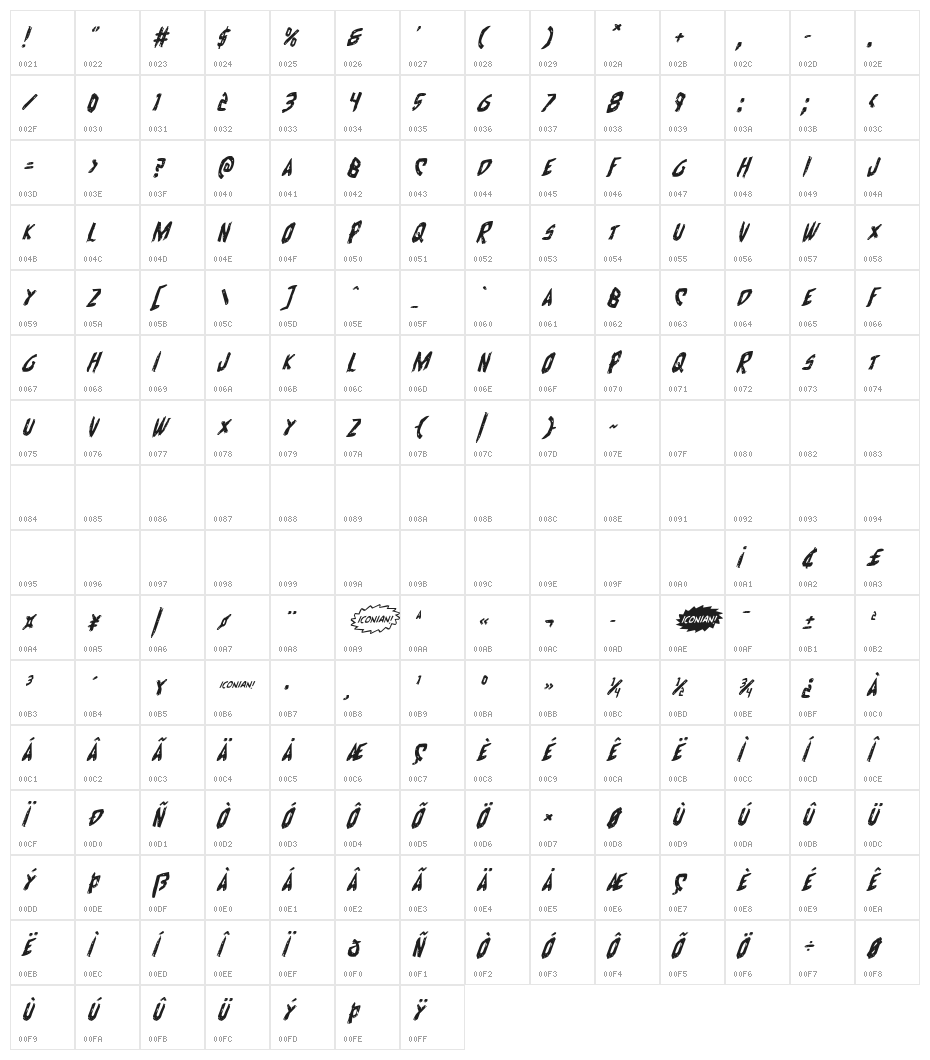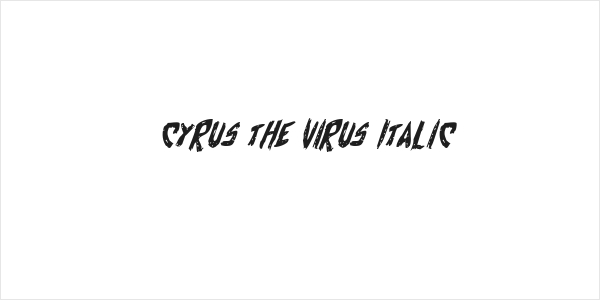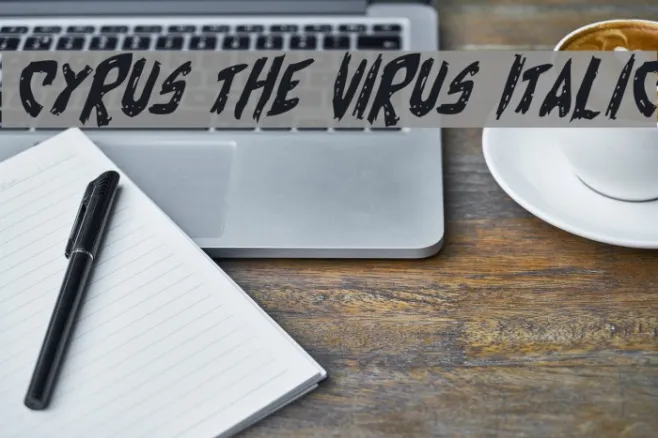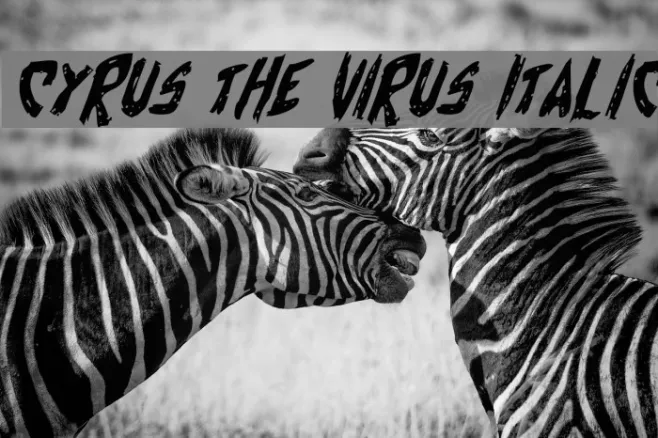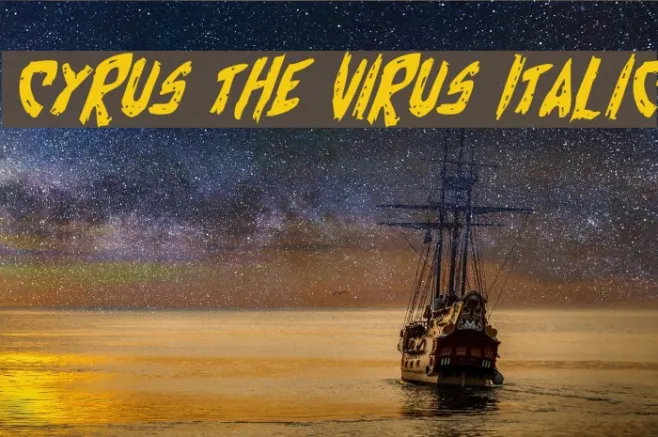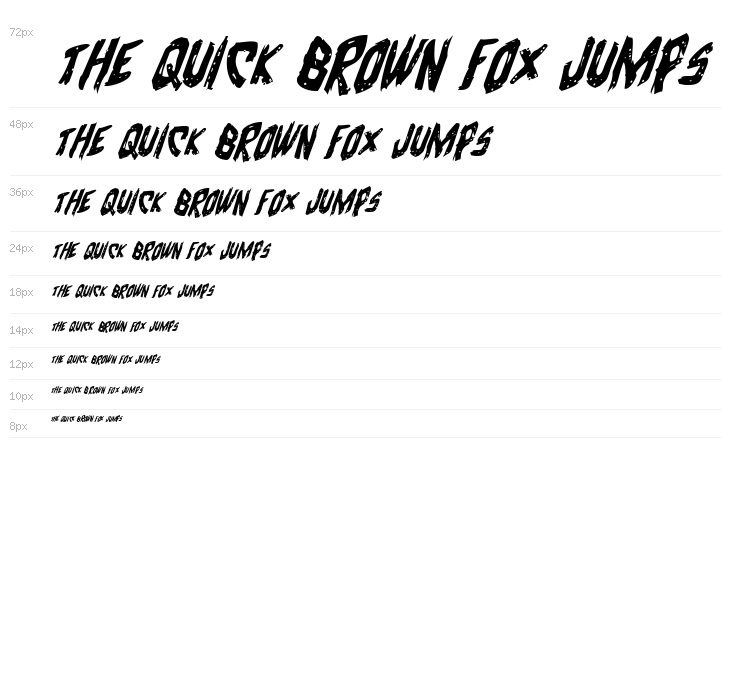
Cyrus the Virus Italic Font
Cyrus the Virus Italic Description
This font features a bold, distressed style with a dynamic, italicized slant. The characters are designed with rough, jagged edges, giving them a raw and energetic appearance. The uppercase and lowercase letters maintain a consistent style, with the uppercase being slightly larger and more pronounced. Numbers and special characters follow the same rugged design, ensuring uniformity across all elements. The font's unique texture and slant make it stand out, ideal for projects that require a bold statement or a grunge aesthetic.
| Proposed Projects | Ideal for music album covers, skateboarding brands, streetwear designs, and event posters. |